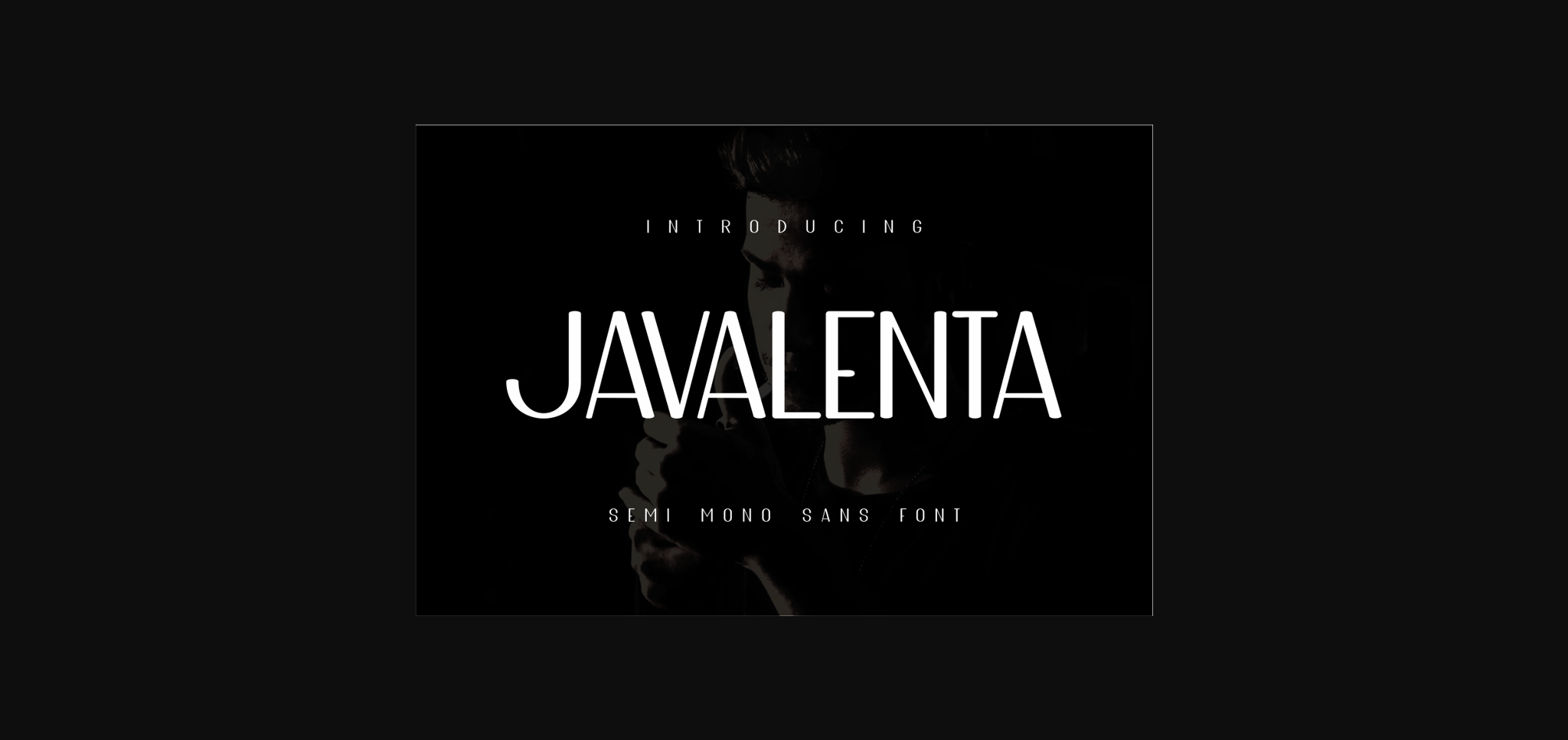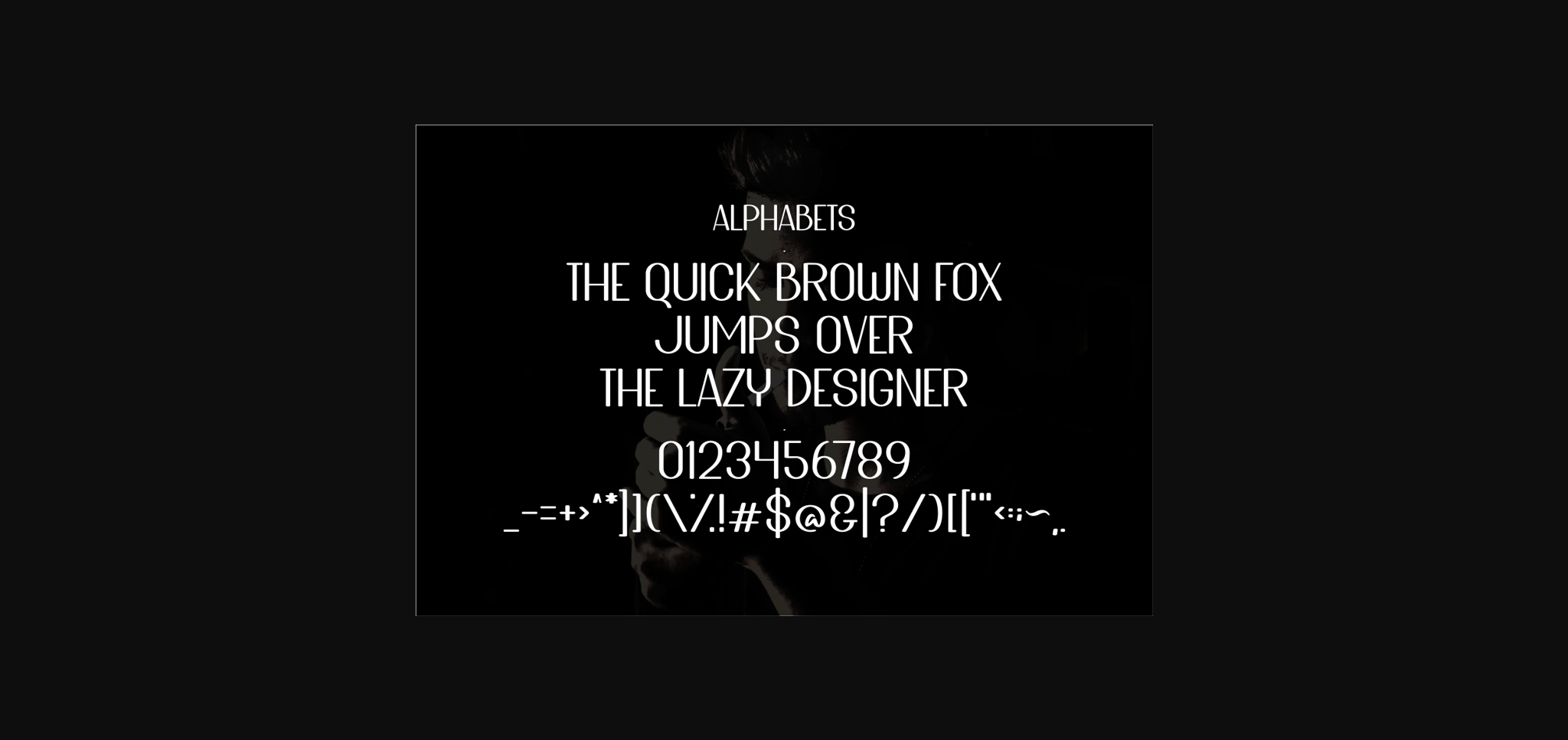
Javalenta Font
About Javalenta Font
Javalenta is a modern and unique sans serif font with well-rounded characters and an easy-to-read look. This typeface is for the title of a book or magazine but can be used for many other creative projects.